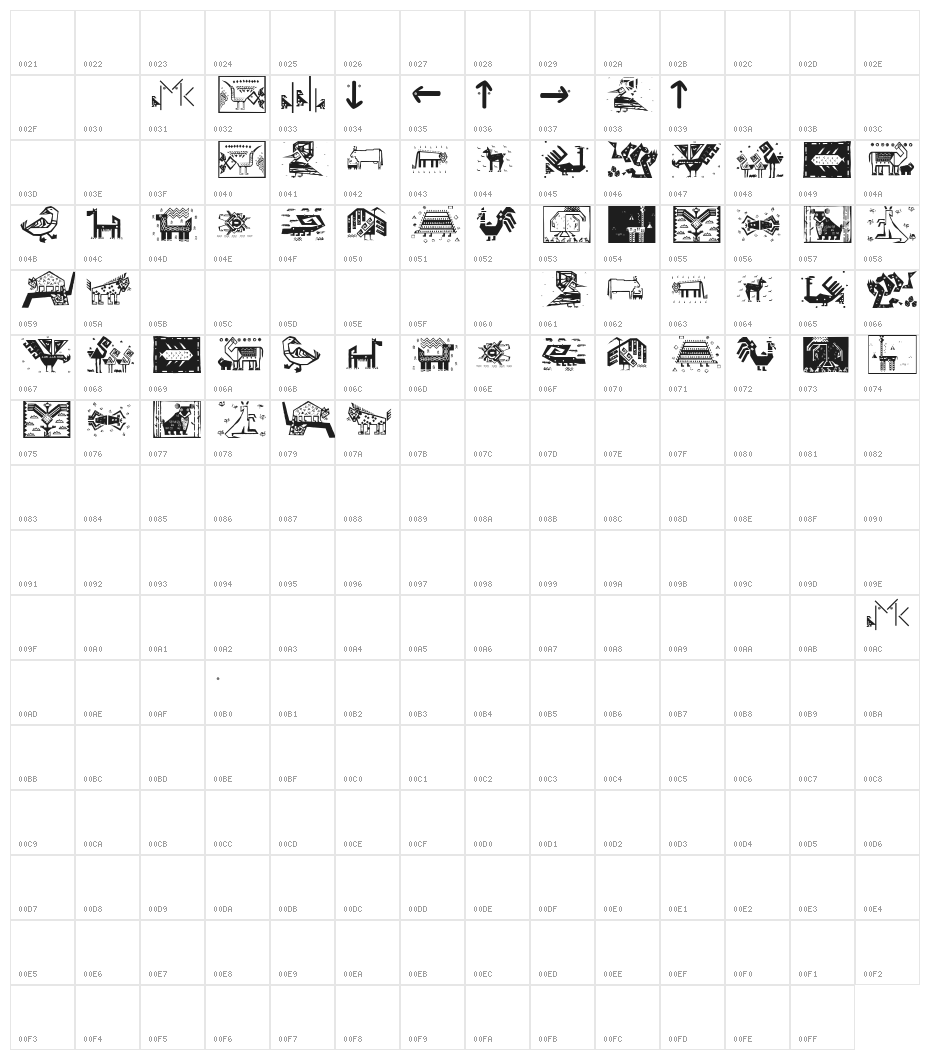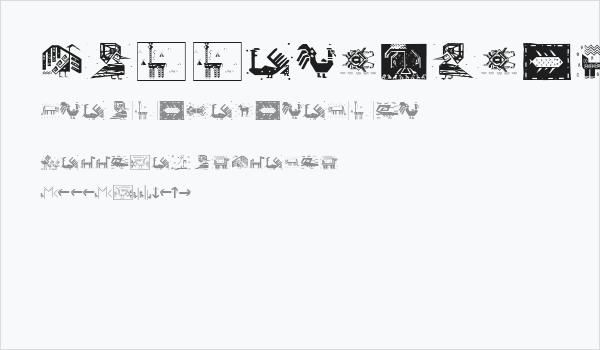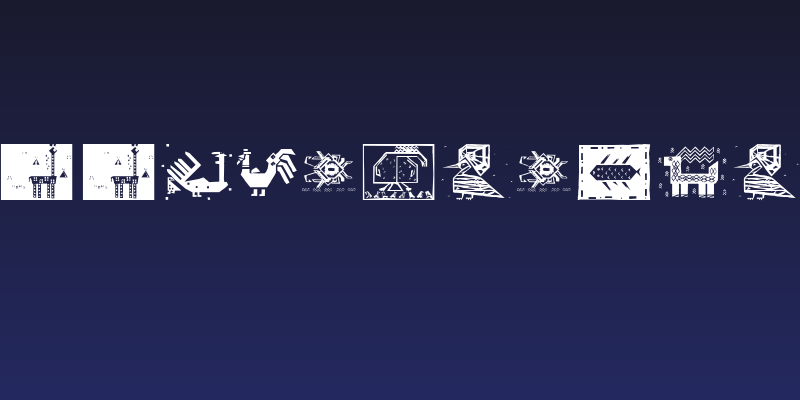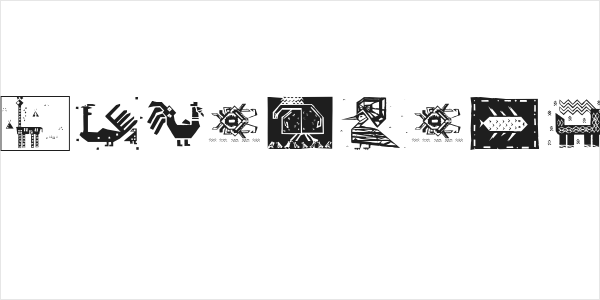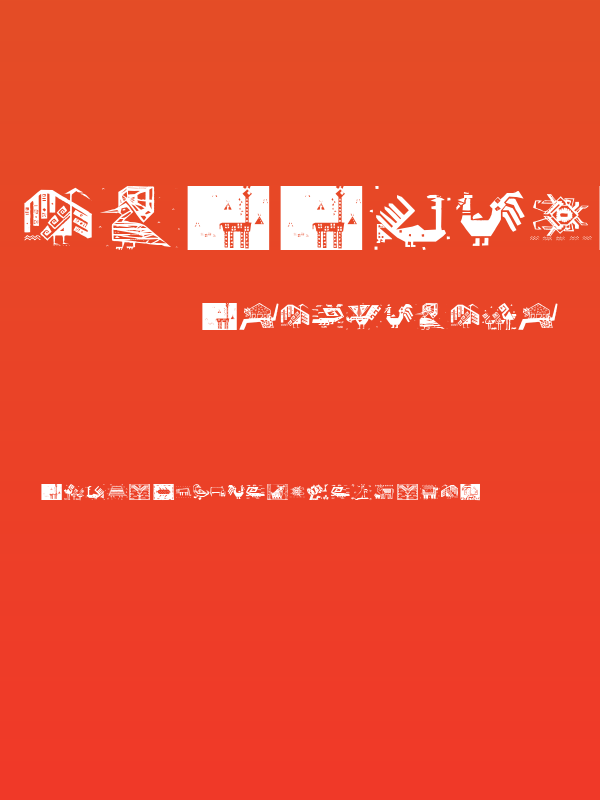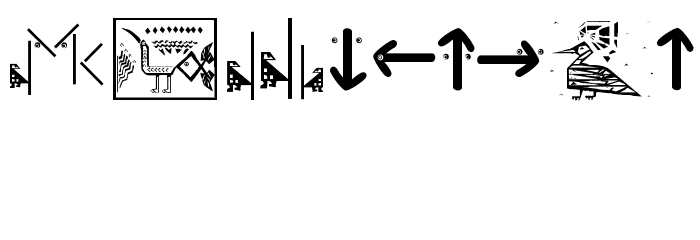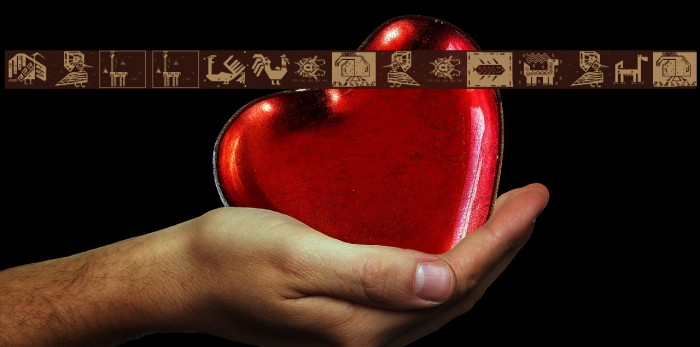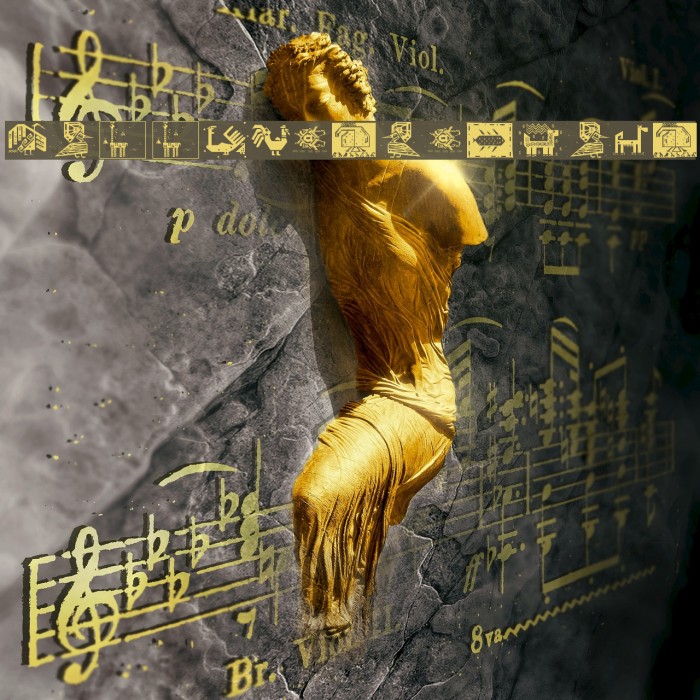
PatternsAnimals Font
This is a decorative font featuring stylized animal patterns. Each character is represented by a unique animal design, incorporating intricate geometric shapes and patterns. The font is highly artistic, with a playful and whimsical style that captures the essence of various animals in a creative manner. The characters are bold and visually striking, making them suitable for attention-grabbing designs. The use of black and white contrast enhances the visibility of the intricate details within each character. This font is not suitable for body text due to its decorative nature but can be effectively used in creative projects where the visual impact is prioritized.
| Use Case | Logos, Posters, Creative Projects |
| Proposed Projects | Ideal for children's books, educational materials, posters, and creative branding projects. |